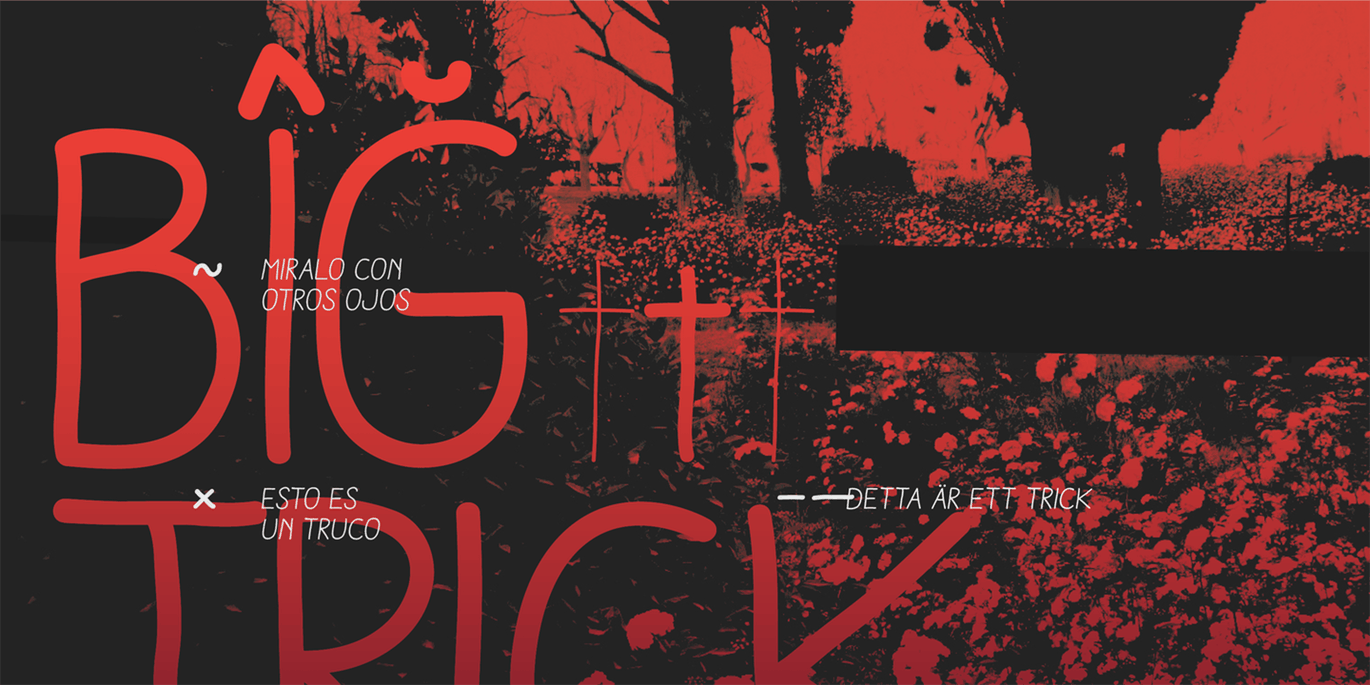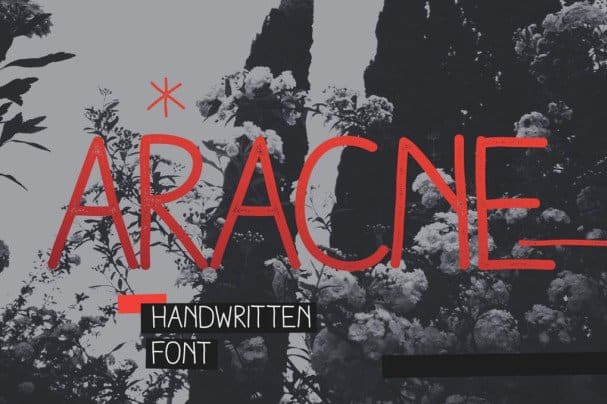
Aracne Font
Aracne Font falls into the category of the condensed fonts. This is also famous for its handwritten typeface and it is similar to the goldsmith font. This font has been attractively not unusual through using a pointer with a tinny brush at the acrylic newspaper. Its appearances are fantastic in dark paint sun sunglasses.
It is the thirsty script, and we find out it not possible to resist due to its pinnacle-notch remarkable patterns. Unluckily, you may most, in truth, use it in adobe photoshop and illustrator. Aracne Font Free This font has a stylish appearance and touches with its threesome of outlines in respectively letter introduction. Apply it to commonplace to large sizes for headings, works of artwork and masses greater.